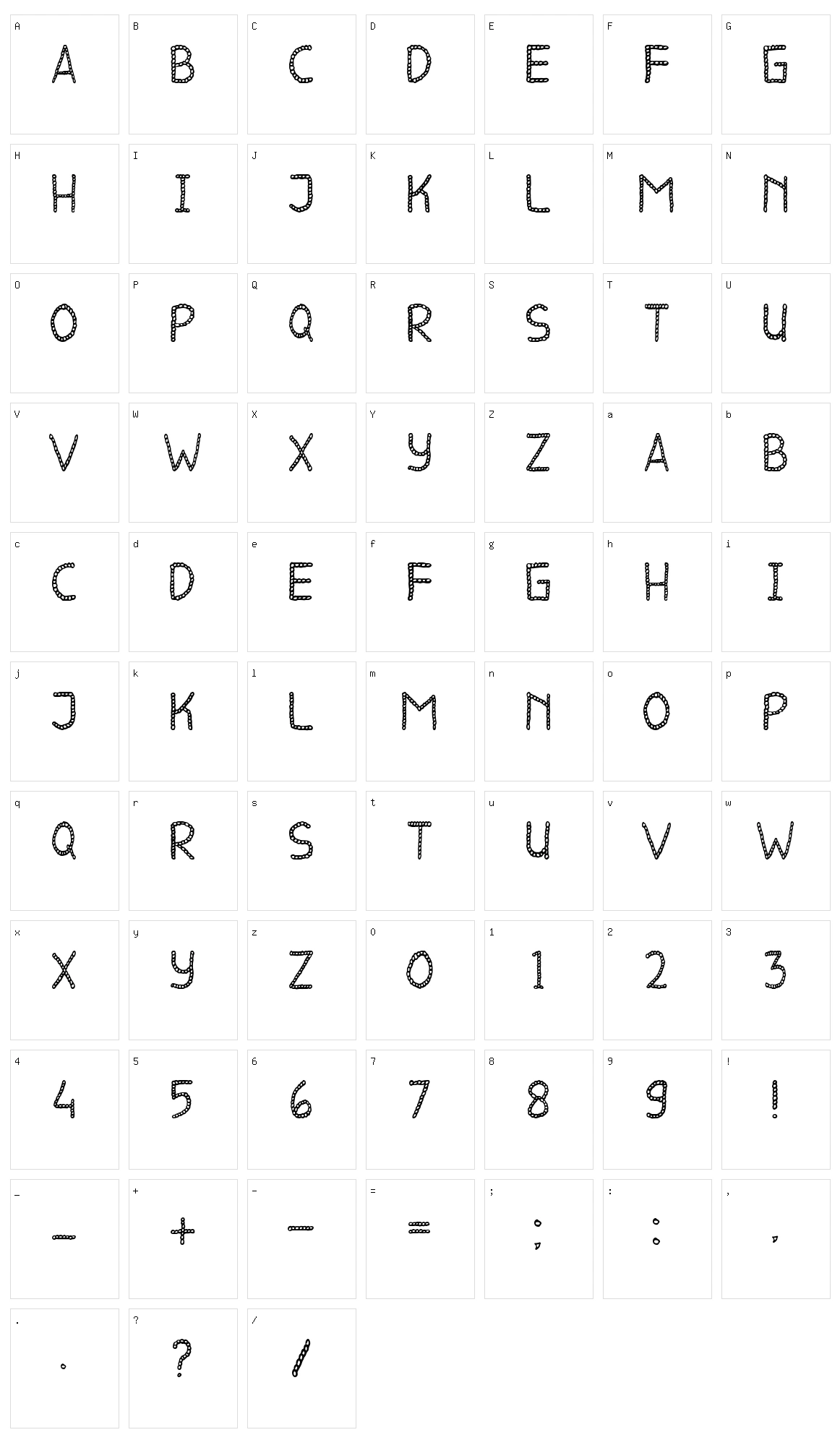
The free font Stones is carefully designed by Ditya Ananto, showcasing a thoughtful balance of creativity and usability and falls under the Decorative font style. When you download the ZIP file, it contains only 121.23 KB of font files, making it lightweight and quick to download. Please review the license details below to understand permitted usage and distribution rights. If license information is not available, we recommend using this font for personal projects only or contacting the author directly for commercial usage permissions.